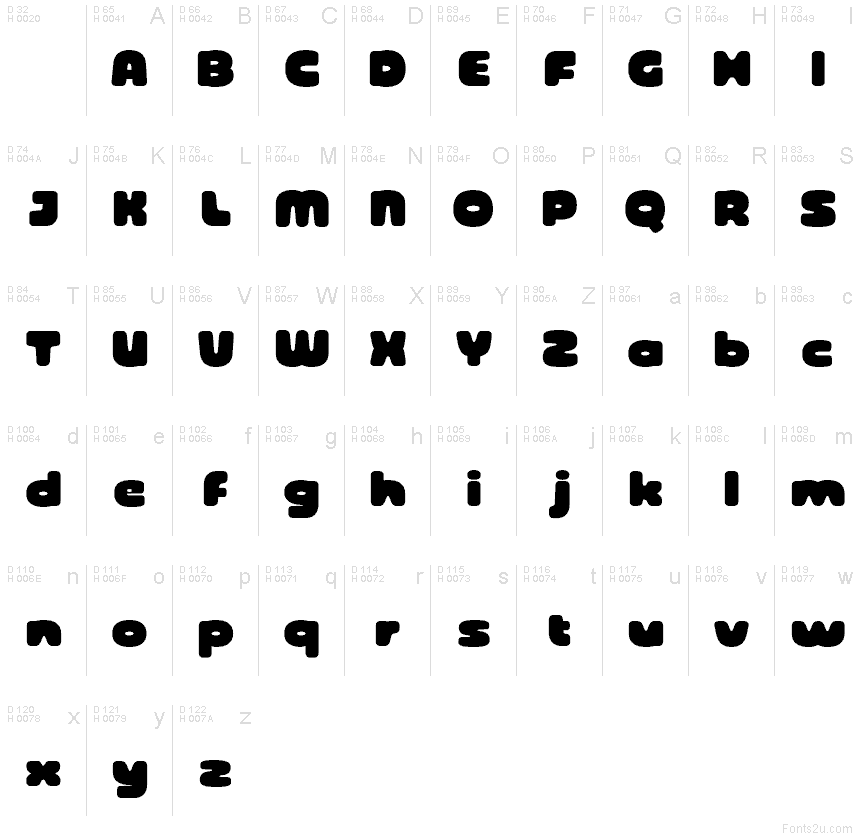
CS Scalion Regular Demo
CS Scalion font by Craft Supply Co. is a free bold cartoon display font. Built around plush, puffed shapes, it feels like letters molded from soft vinyl—rounded corners, pillowy curves, and chunky counters that soak up attention without getting messy. The rhythm is tight yet friendly, giving headlines a buoyant, gummy presence that reads fast and feels fun.
Using CS Scalion, your titles pop on kids’ logos, snack packaging, game covers, YouTube thumbnails, playful event posters, and sticker sheets. This free font thrives at big sizes; add a touch of tracking for air and let the squishy forms breathe. Pair with a thin geometric sans for body copy to balance its cuddly heft.